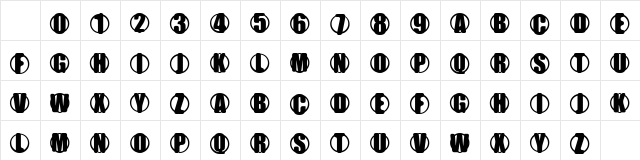
Complete YChrome Prime glyph index. Displaying only characters natively supported by YChrome Prime font.
YChrome is a composed and adaptable typeface that performs quietly and consistently across a wide range of design contexts.